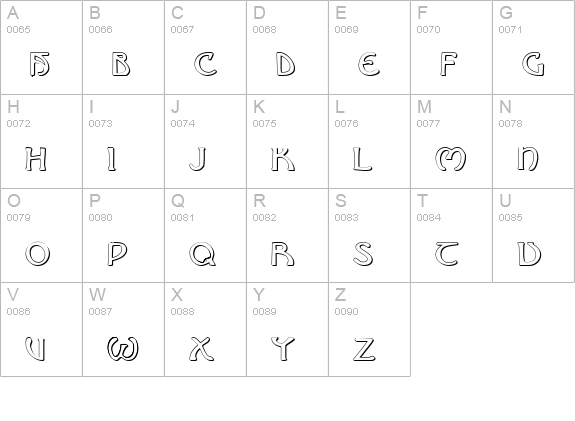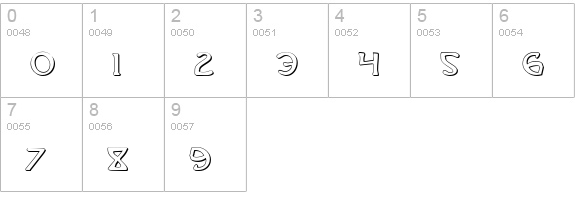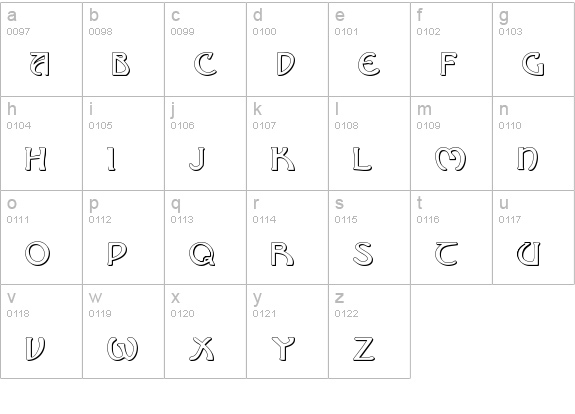
Brin Athyn Shadow font is a captivating and versatile typeface that exudes a sense of mystery and sophistication. Its intricate design and elegant curves make it perfect for a wide range of creative projects, from branding to print materials. The shadow effect adds depth and dimension to the text, making it stand out in a unique way. The best part about Brin Athyn Shadow font is that it is completely free to download at FontsMarket.com. This means you can enhance your designs with this stunning font without having to spend a dime. So why wait? Download Brin Athyn Shadow font today and elevate your projects to the next level.